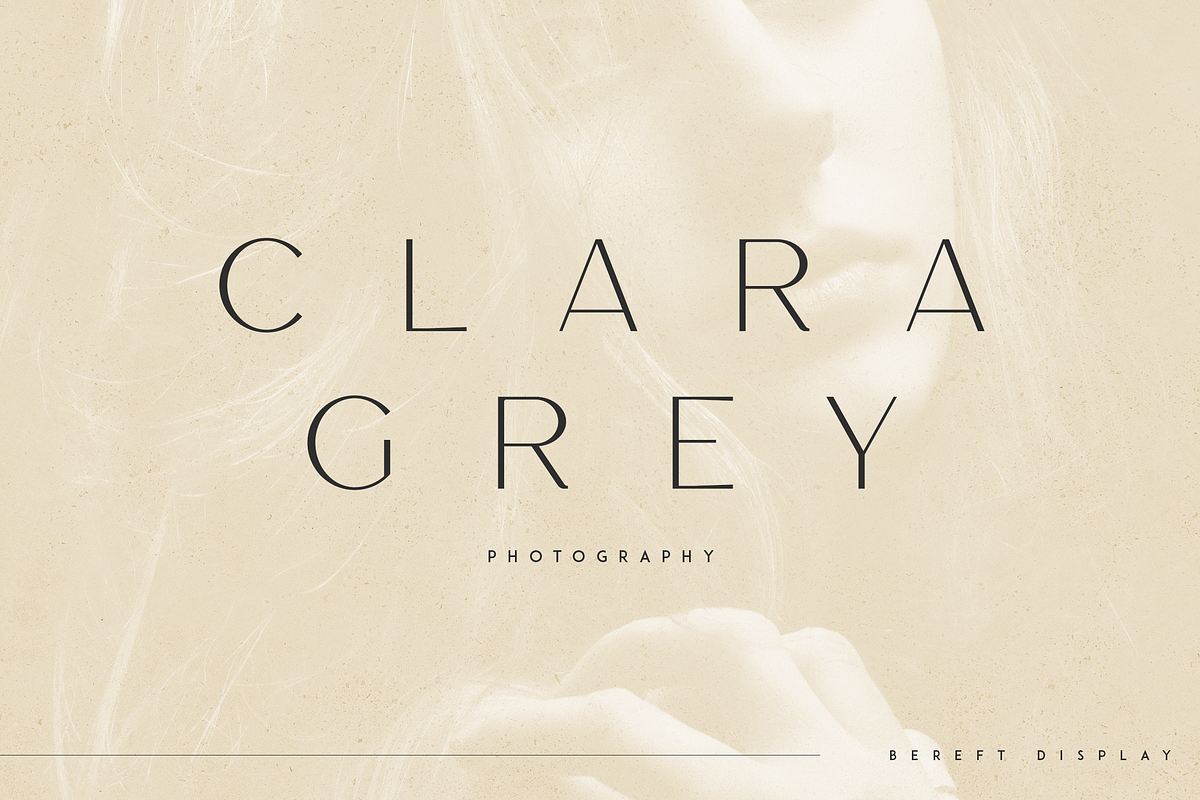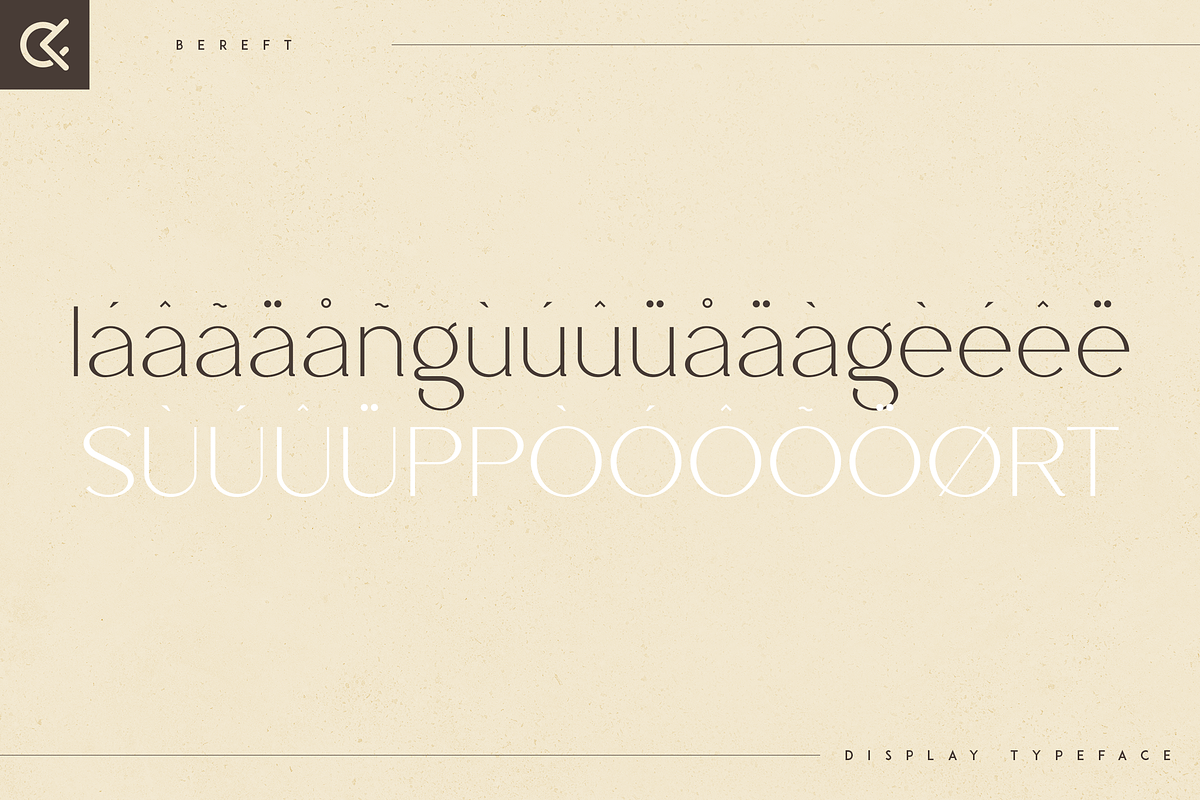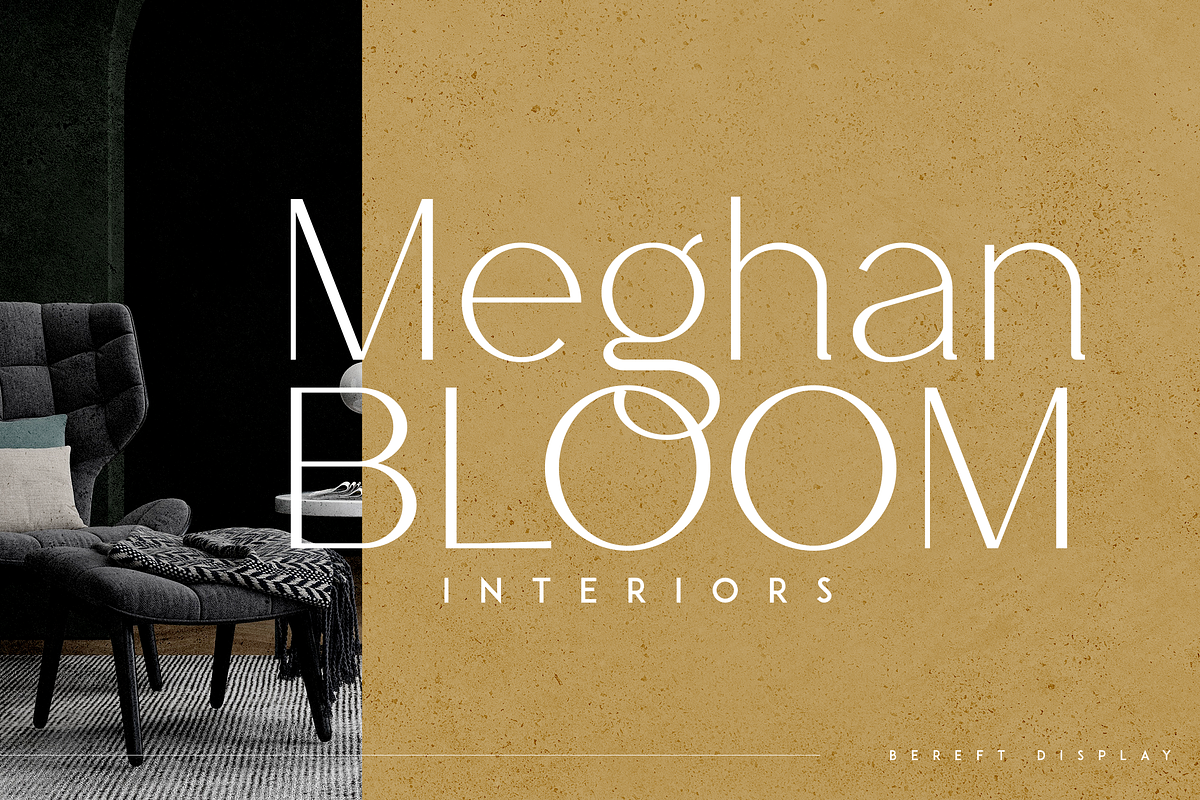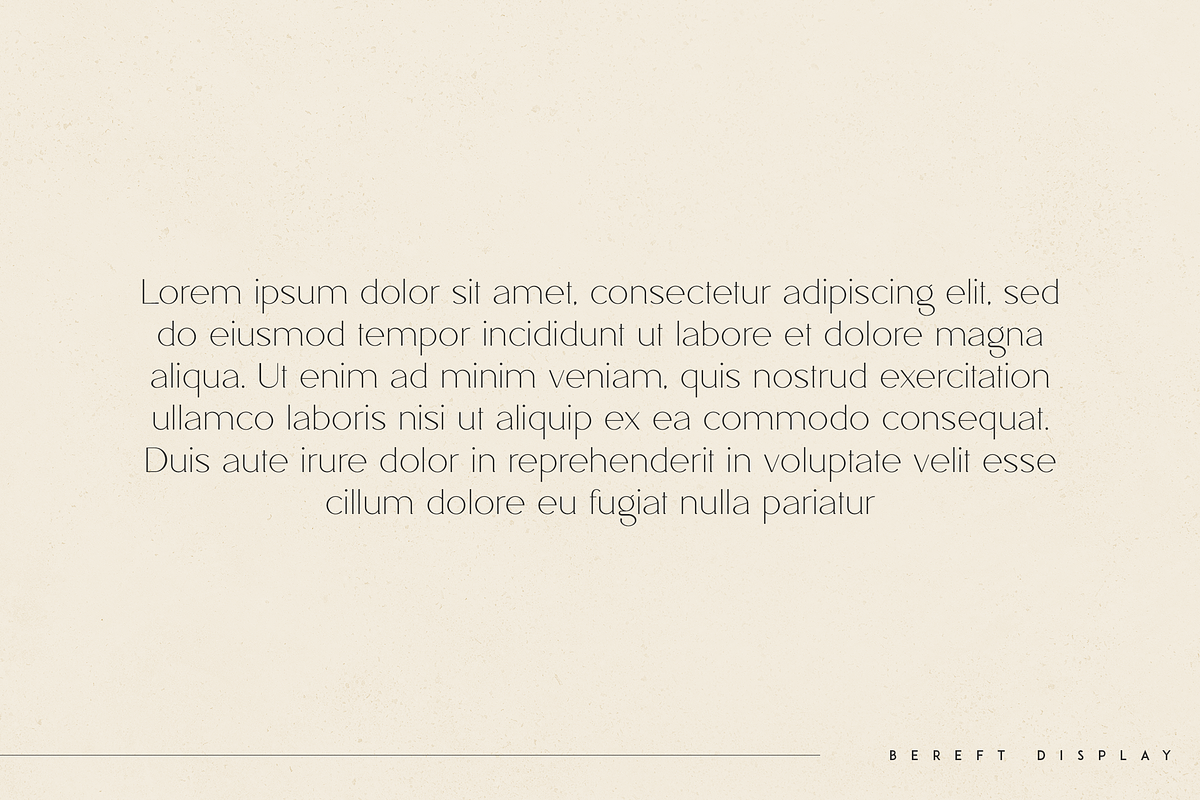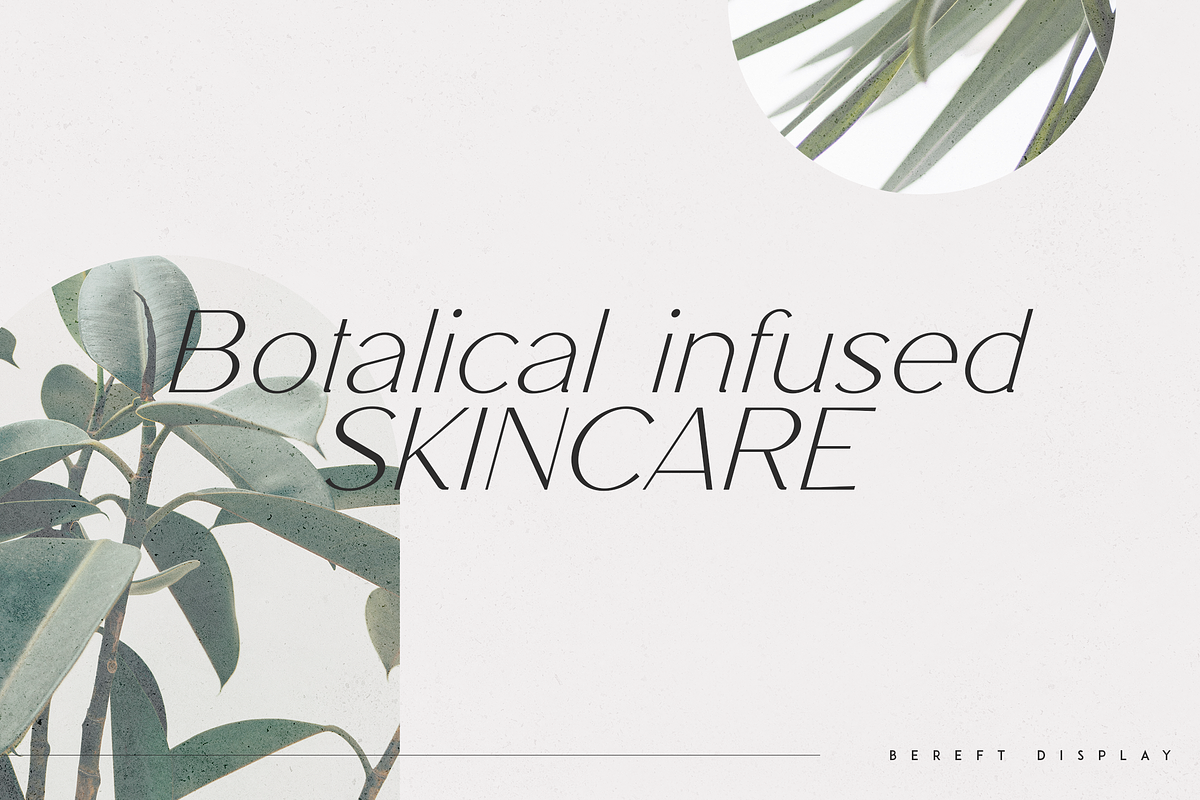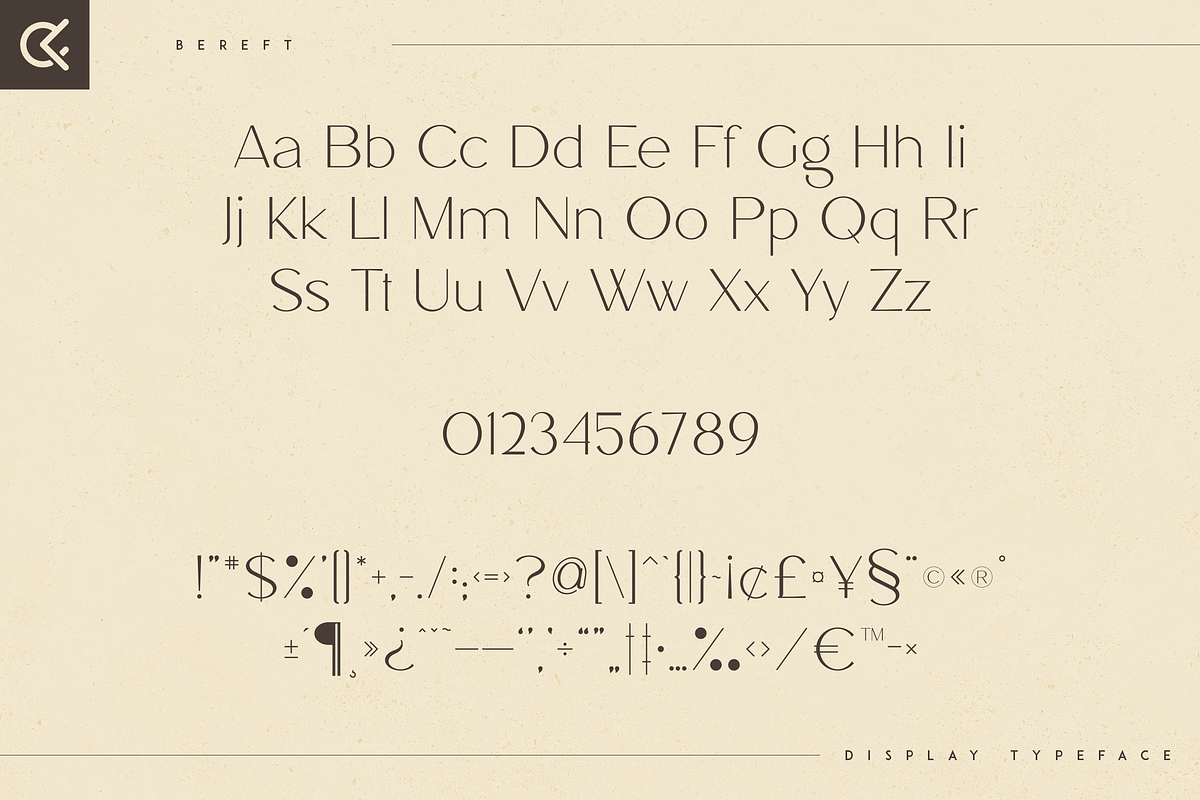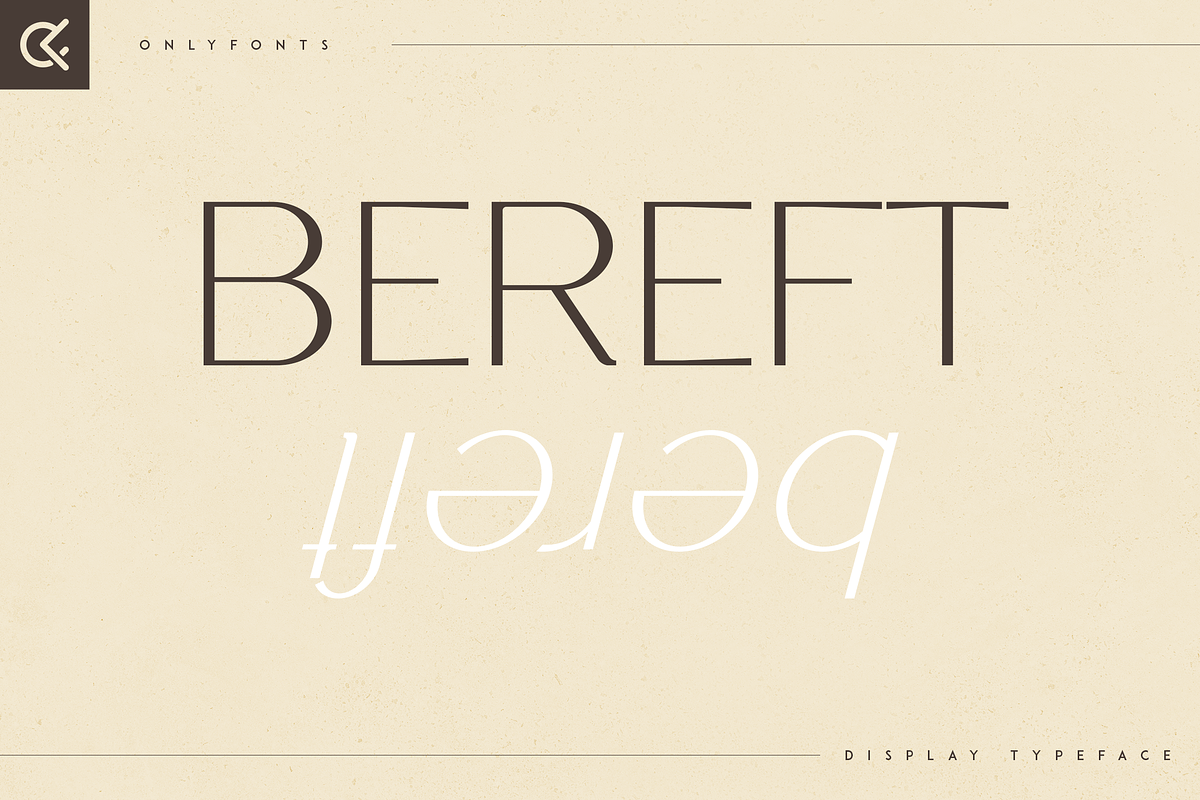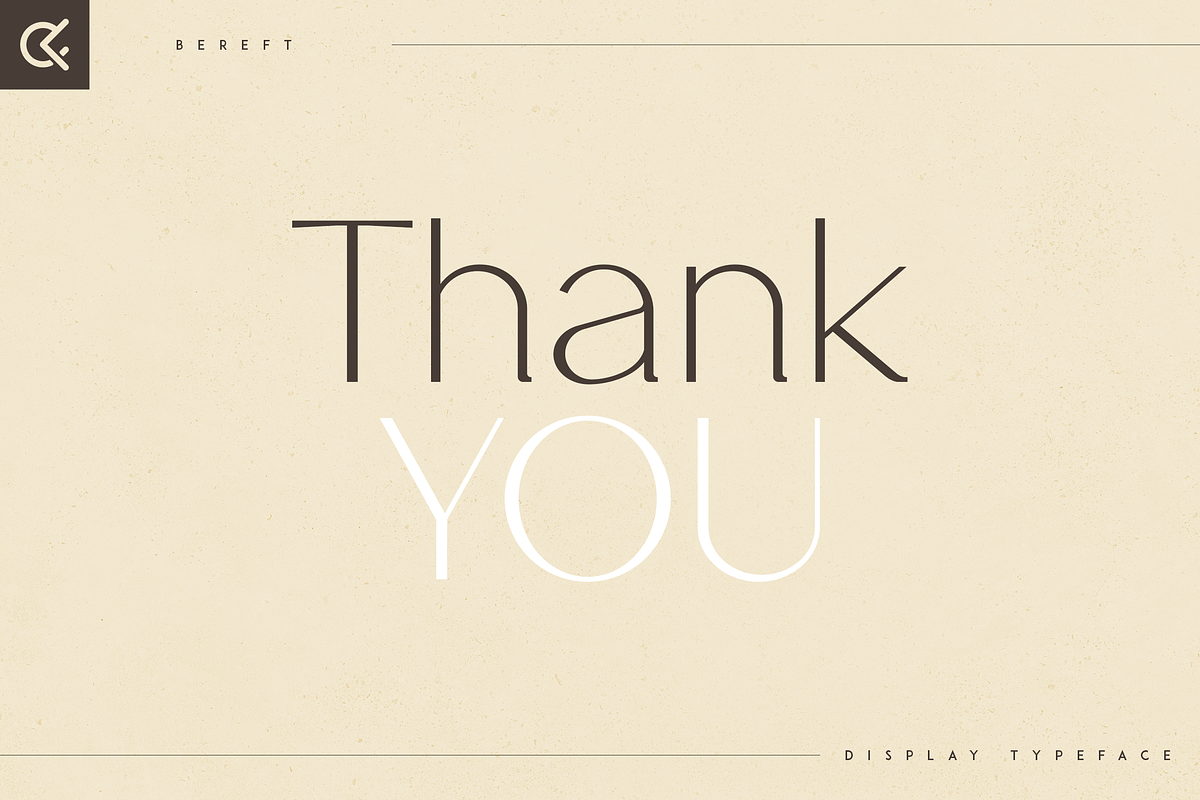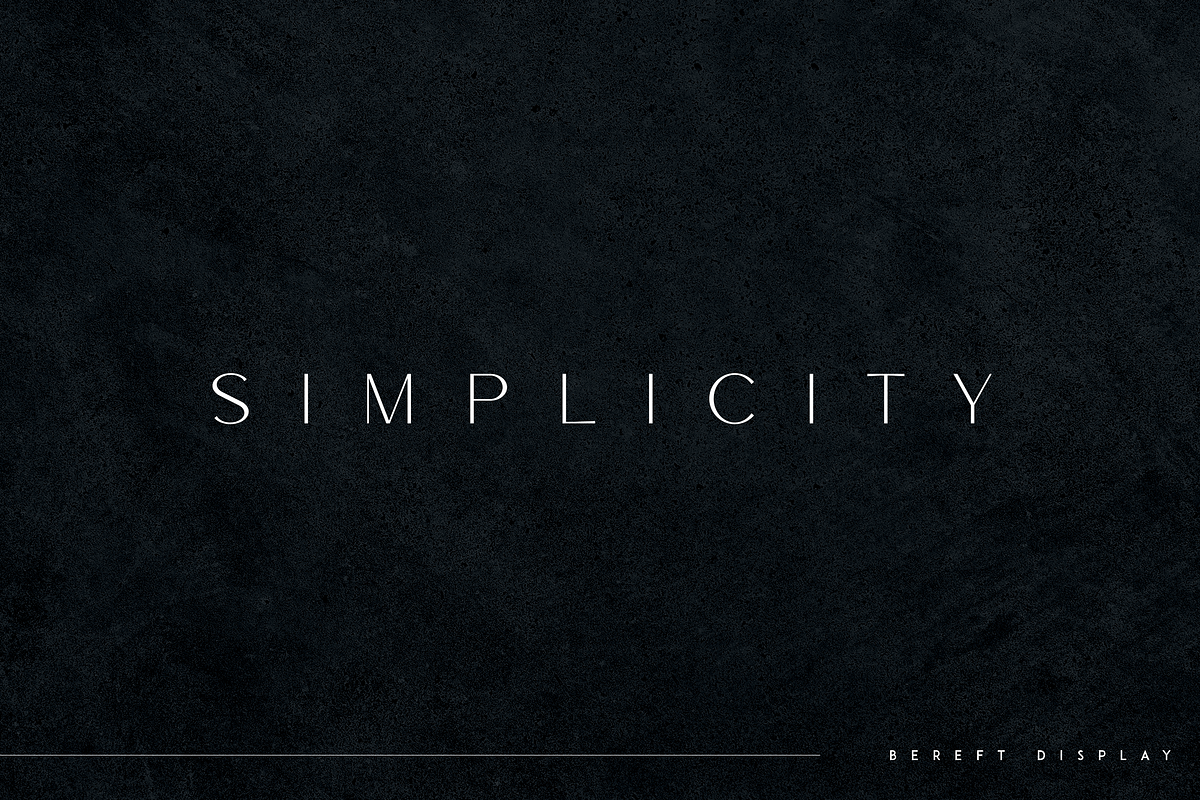
Bereft - Display Typeface
Introducing Bereft - Display Typeface
Bereft is elegant and wide font with multilingual support. It's a very versatile font that works great in large and small sizes.
Bereft is perfect for branding projects, home-ware designs, product packaging, magazine headers - or simply as a stylish text overlay to any background image.
- Uppercase, lowercase, numeral, punctuation & Symbol
- Italic